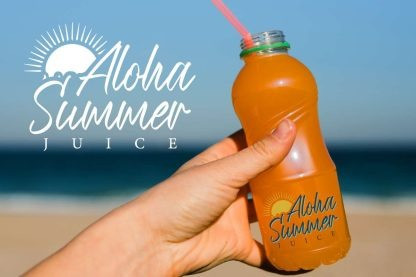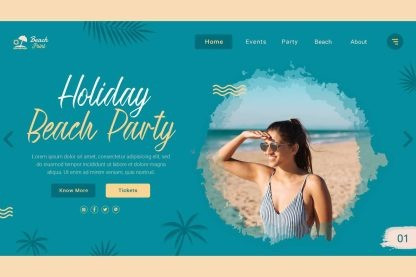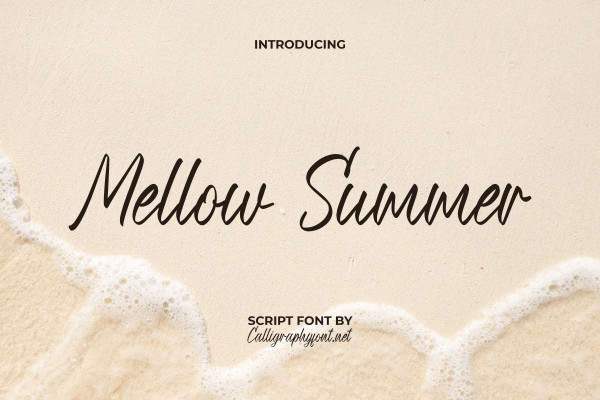
Mellow Summer Font
Mellow Summer Font is a sleek handwritten script font with a fresh look created by CalligraphyFonts. This typography takes on a summer theme that has an uplifting vibe and is matched with soft handwriting so it will suit any industry, such as accessories, architect, beverages, event organizer, fashion brand, florist, furniture, handicrafts, hotel, jewelry, printing, publishing, real estate, restaurant, skincare, spa salon, and many more.
Mellow Summer Font comes with a full set of Uppercase and Lowercase Basic Characters, Number, a large range of Punctuation and Symbol. It will be ready to accompany you on any project, such brand logo, brochure, cover, embossed design, invitation, label, packaging design, signage, stationery, sticker, title, website, or just the art of writing on a background.